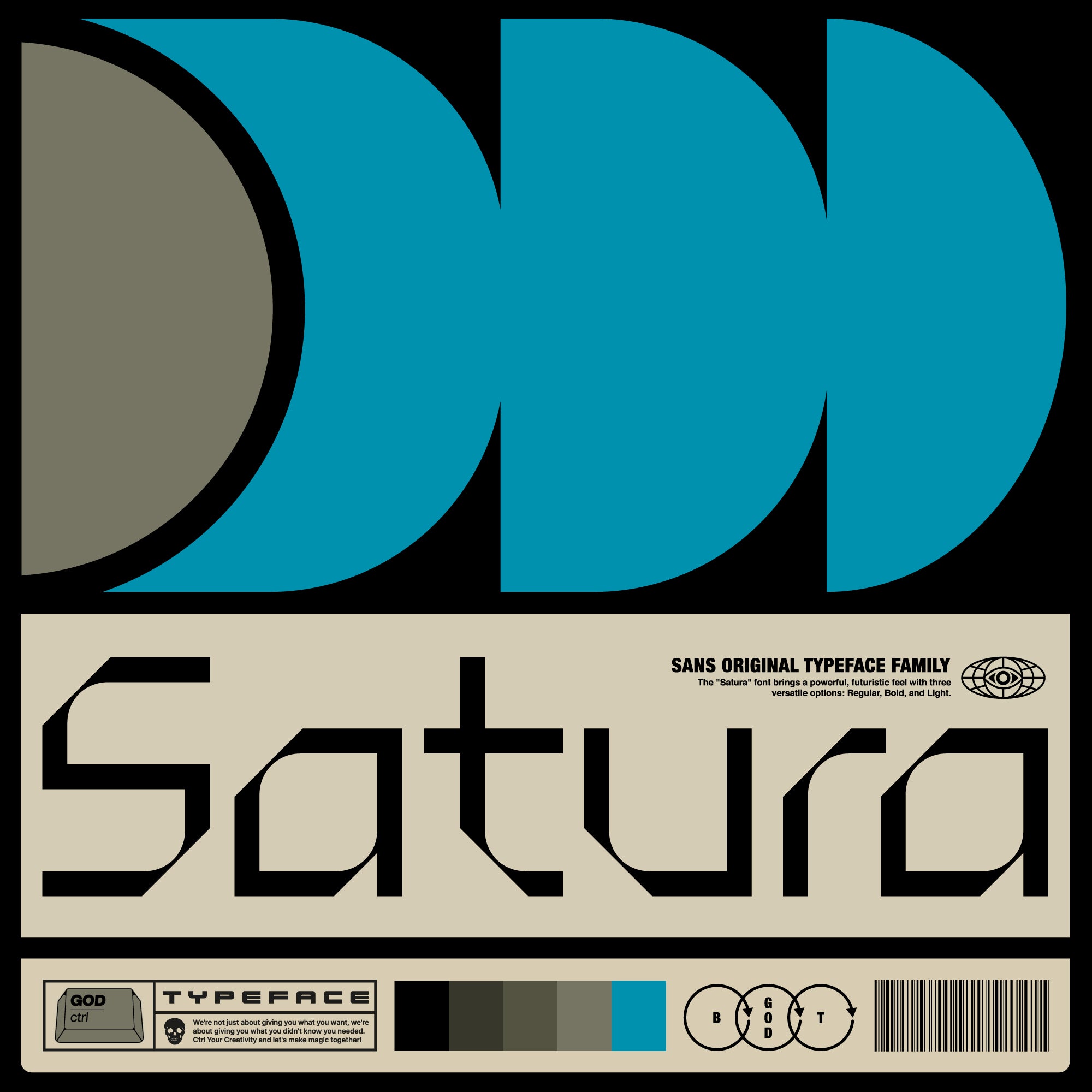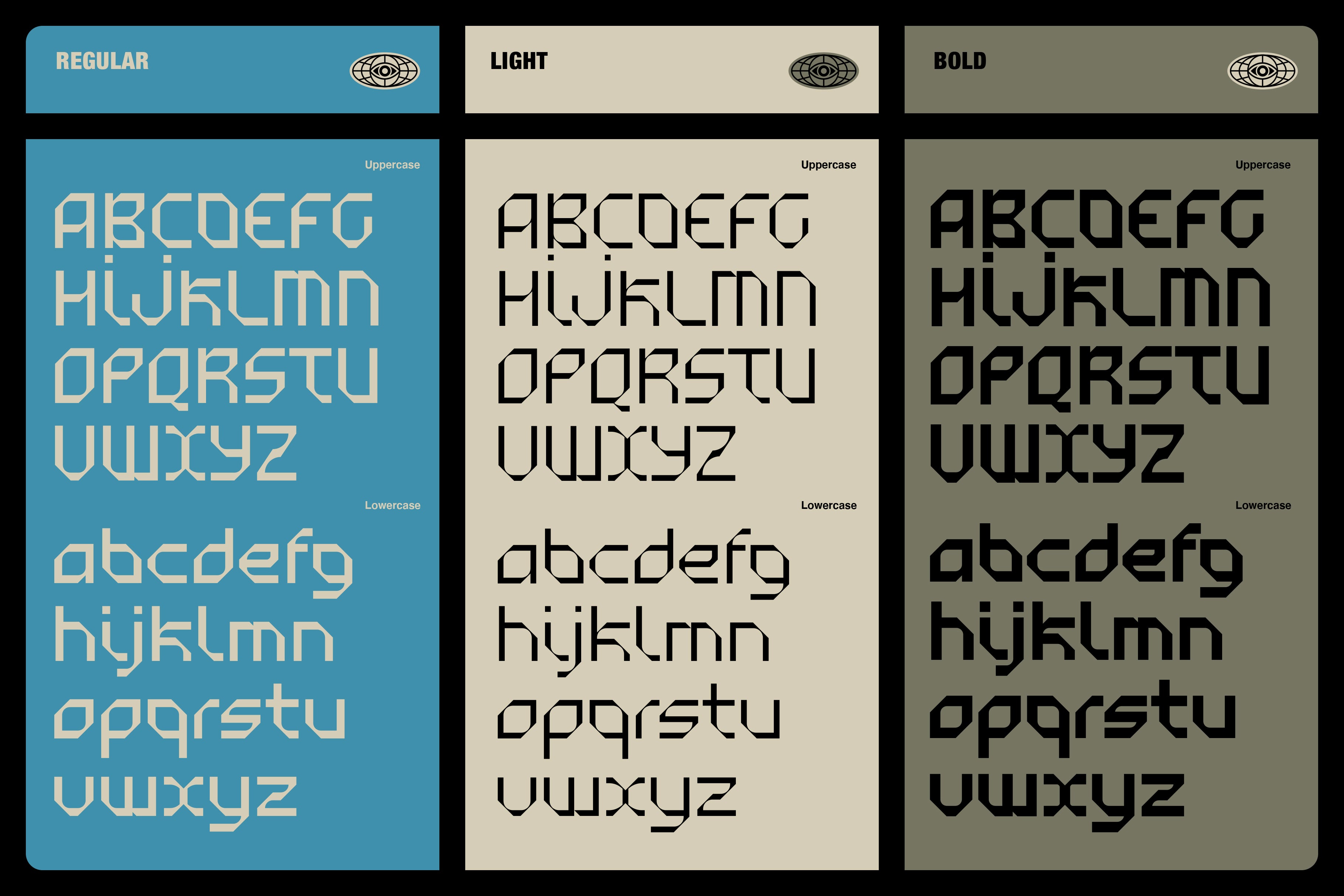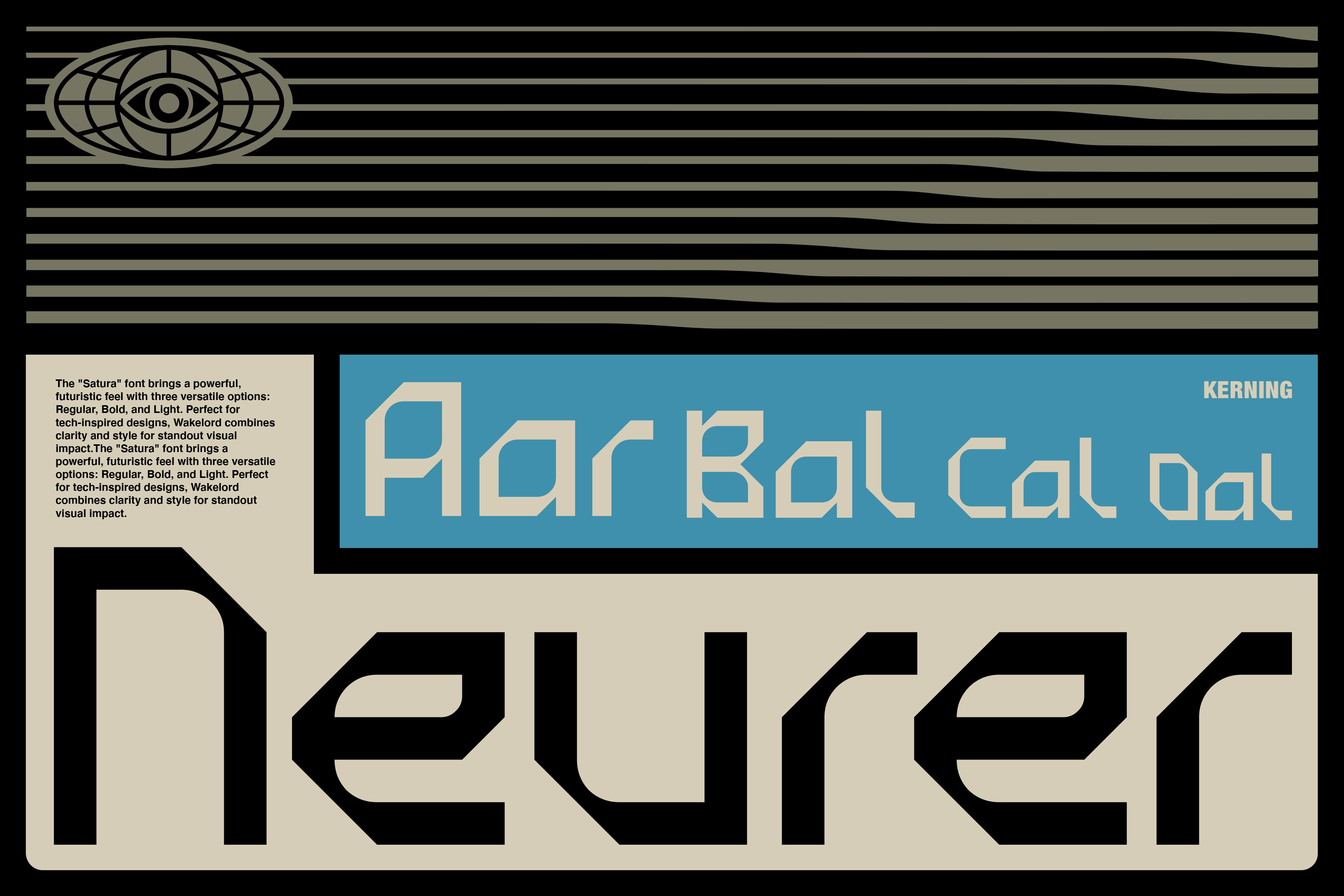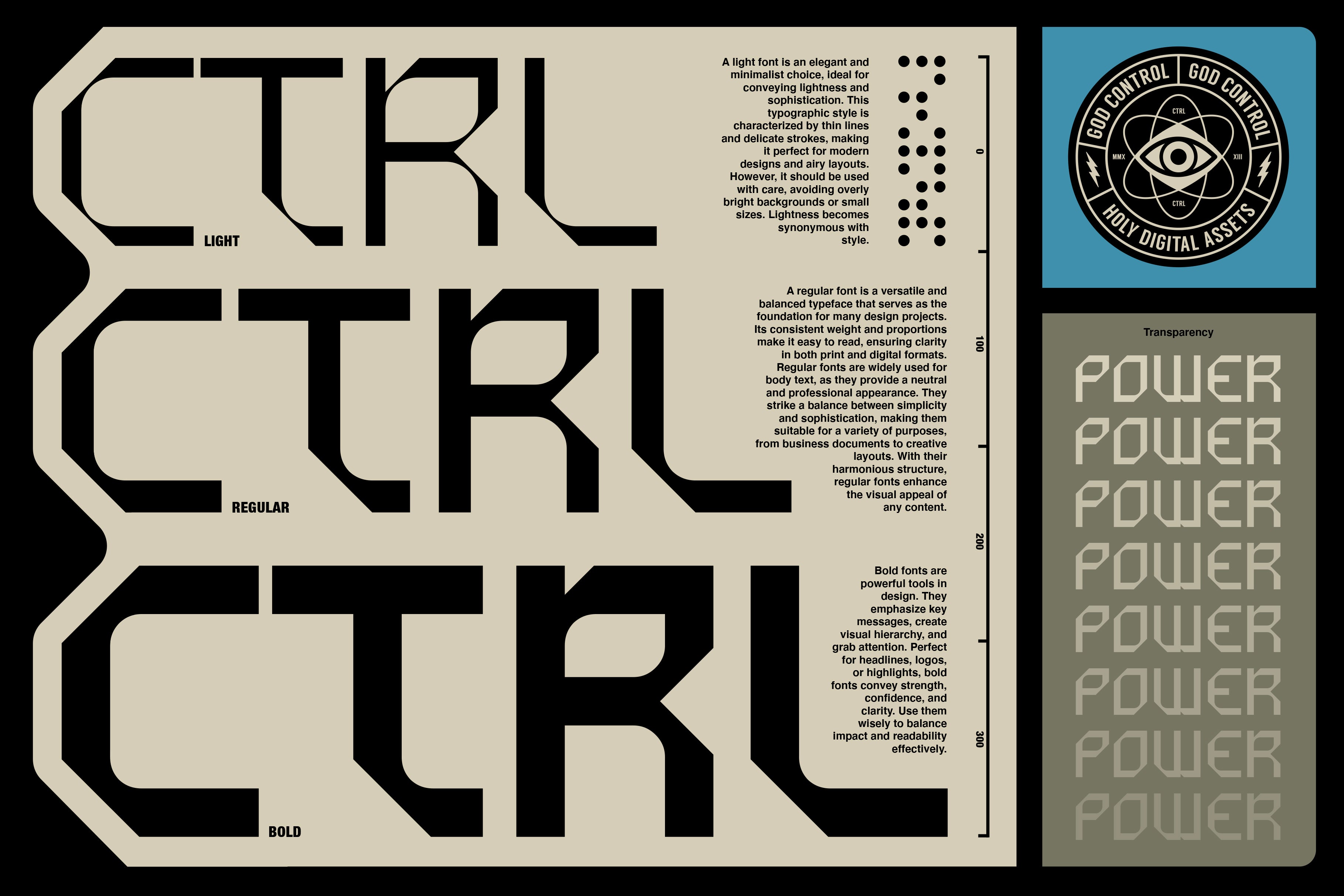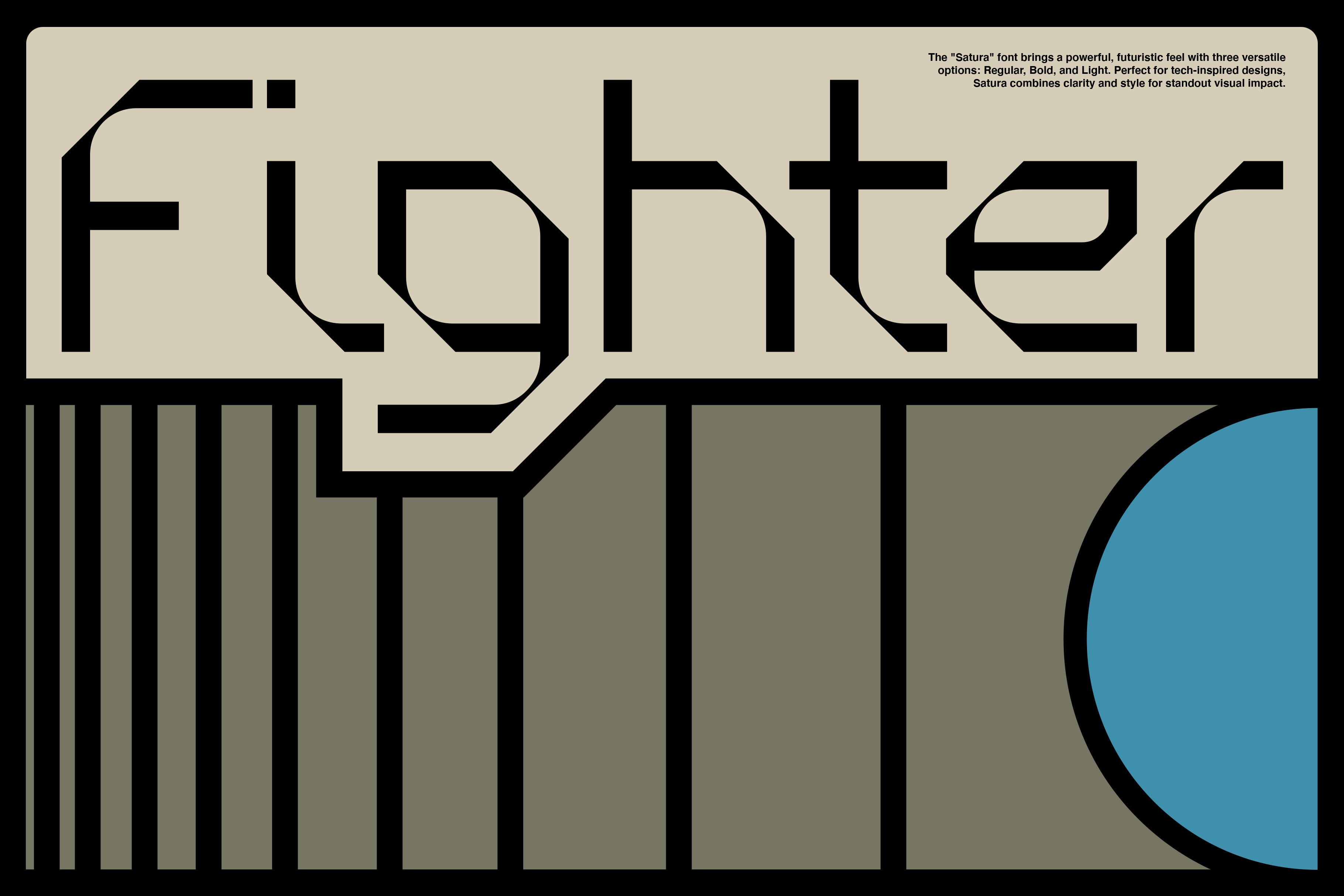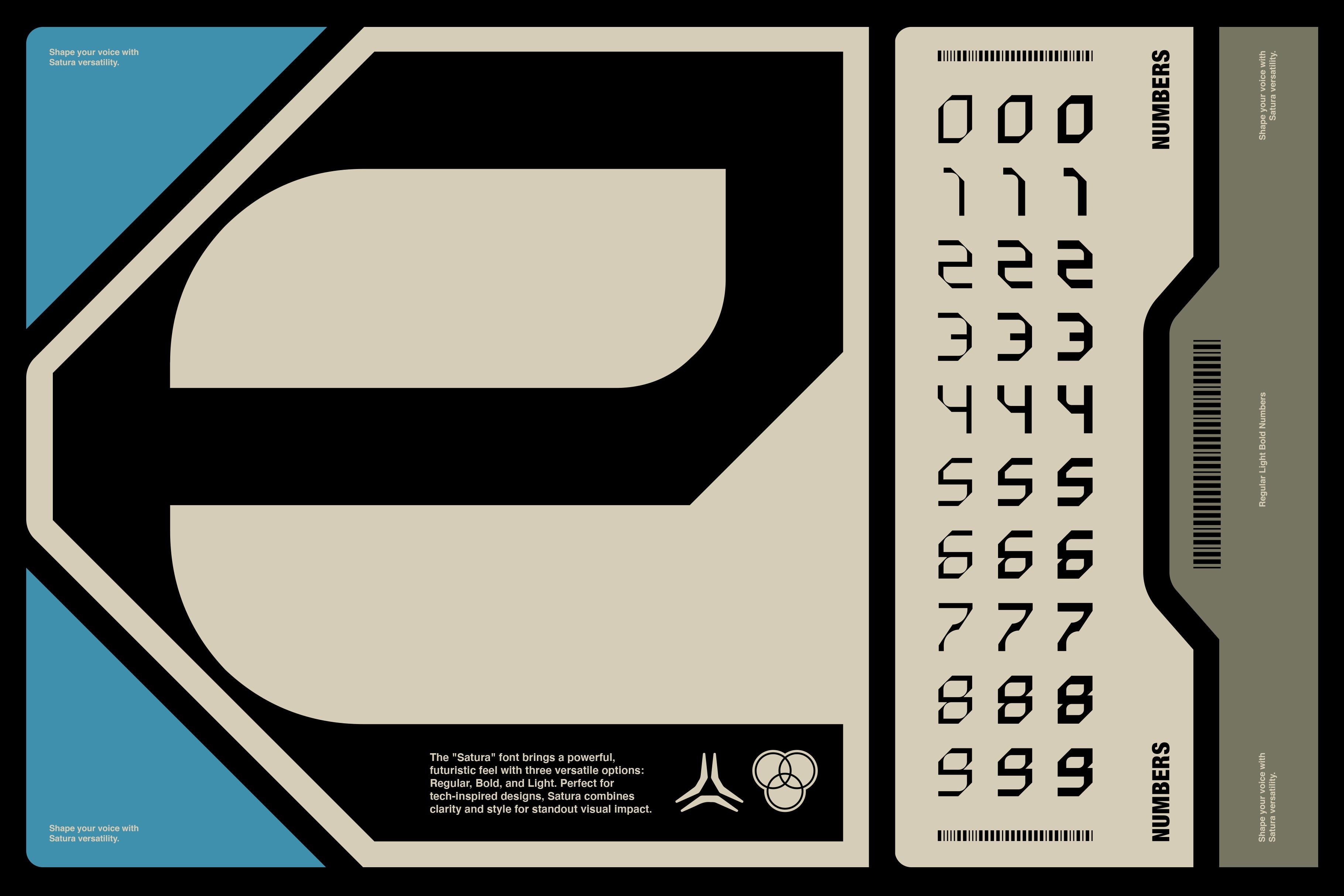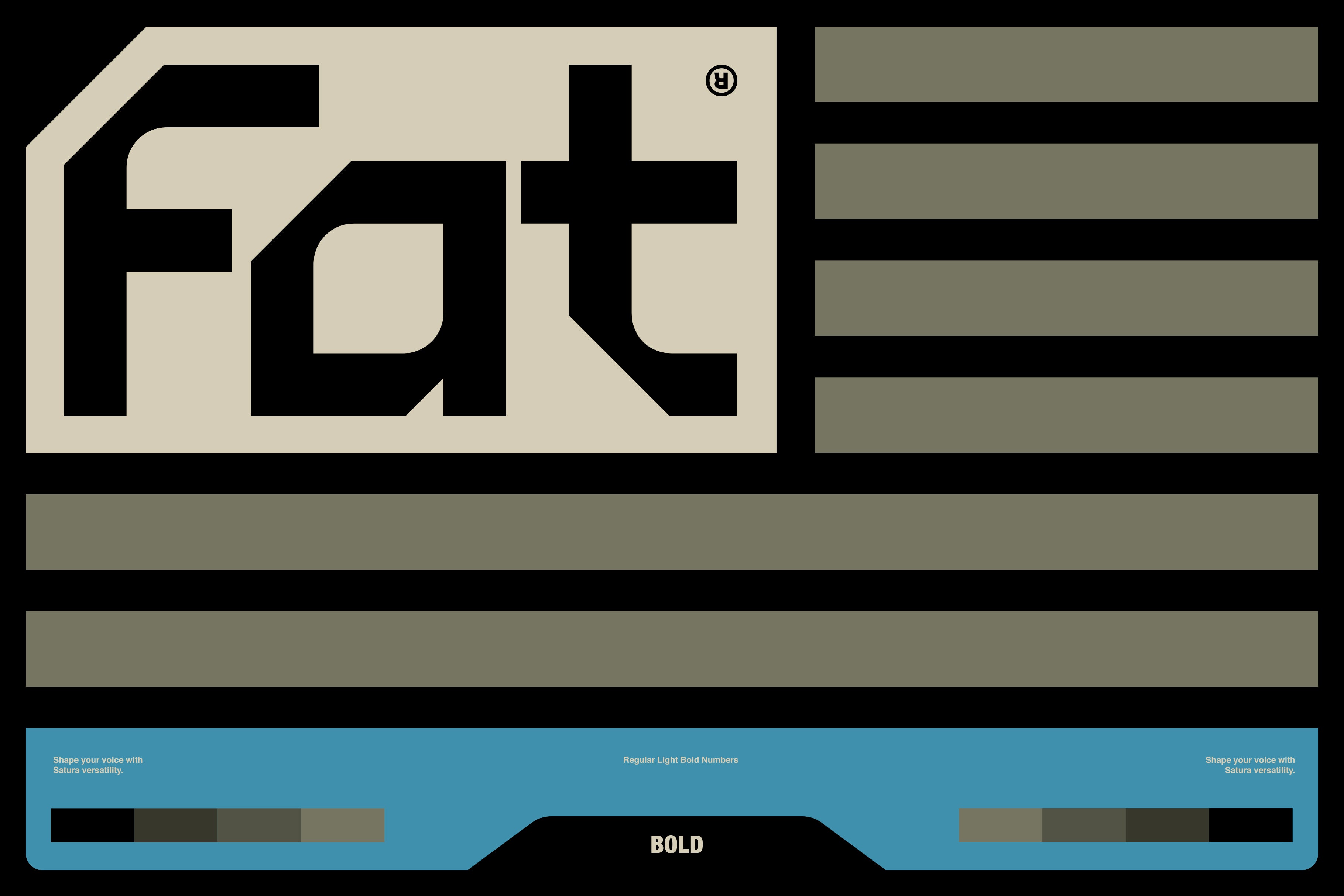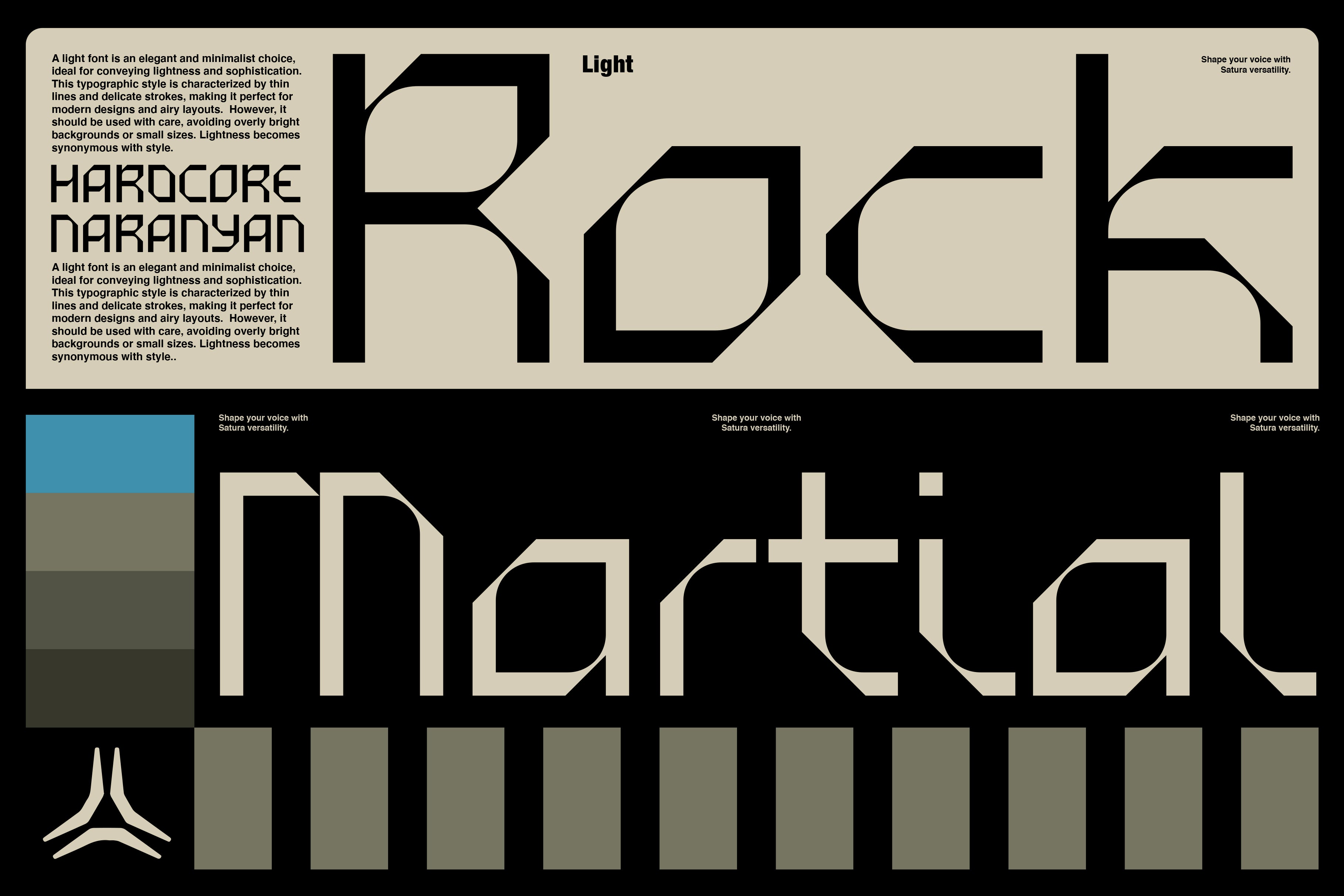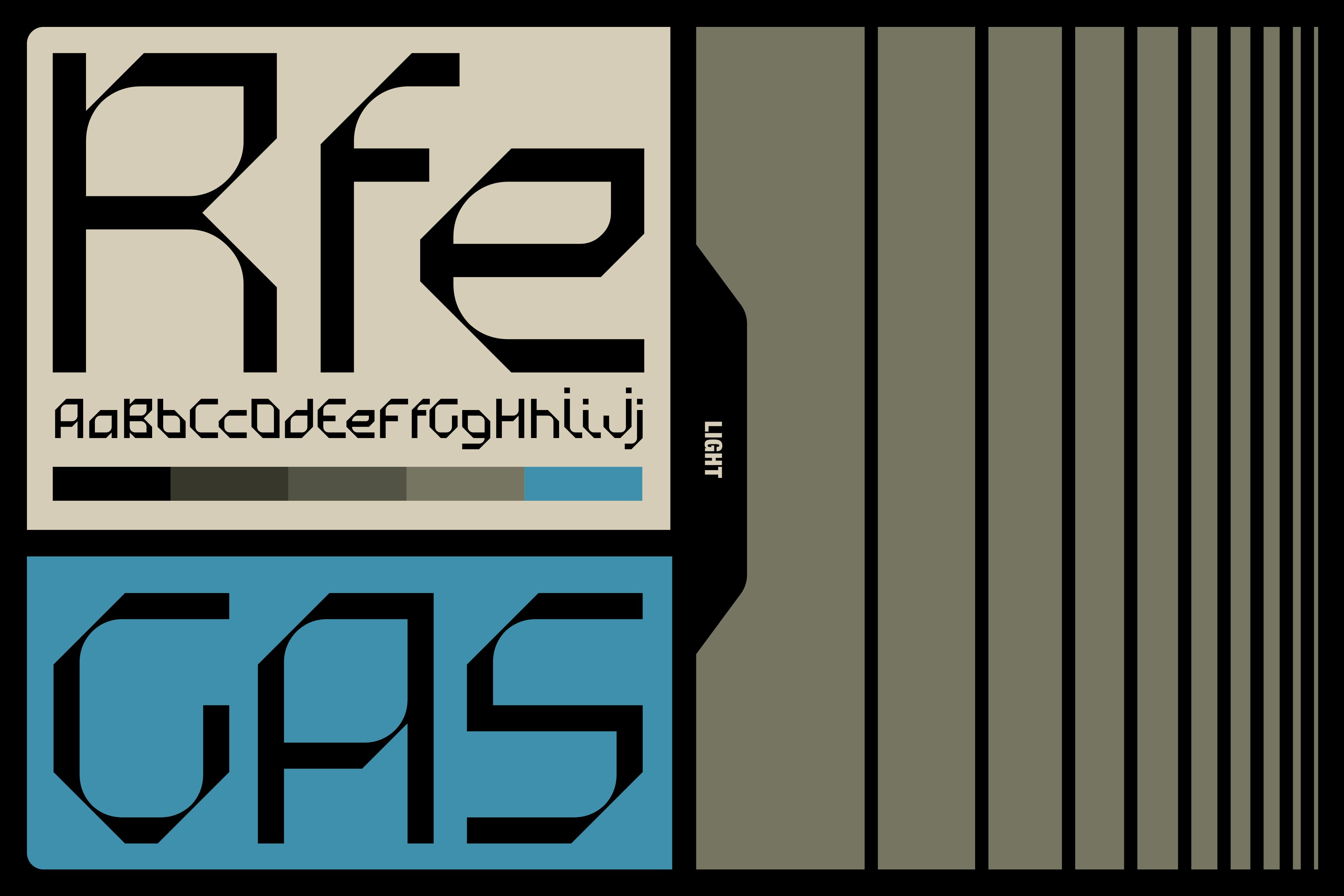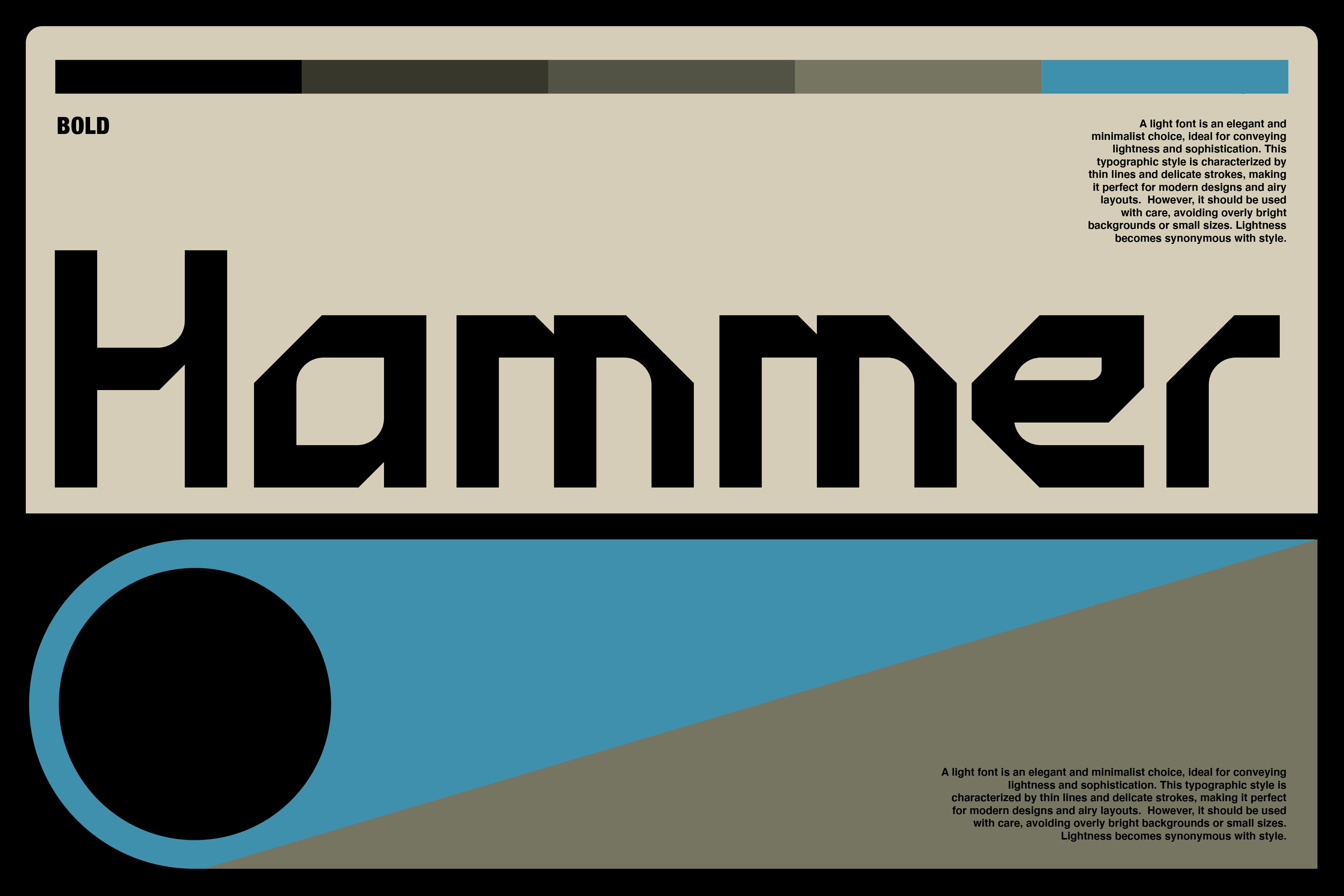
Satura Display Typeface Family
The Satura Display Typeface Family includes three bold and futuristic display fonts—light, regular, and bold—each featuring a full character set with 215 total characters, including special characters and punctuation. The font files are provided in multiple formats: OTF, TTF, WOFF, and WOFF2 for each weight, ensuring compatibility for various design needs.